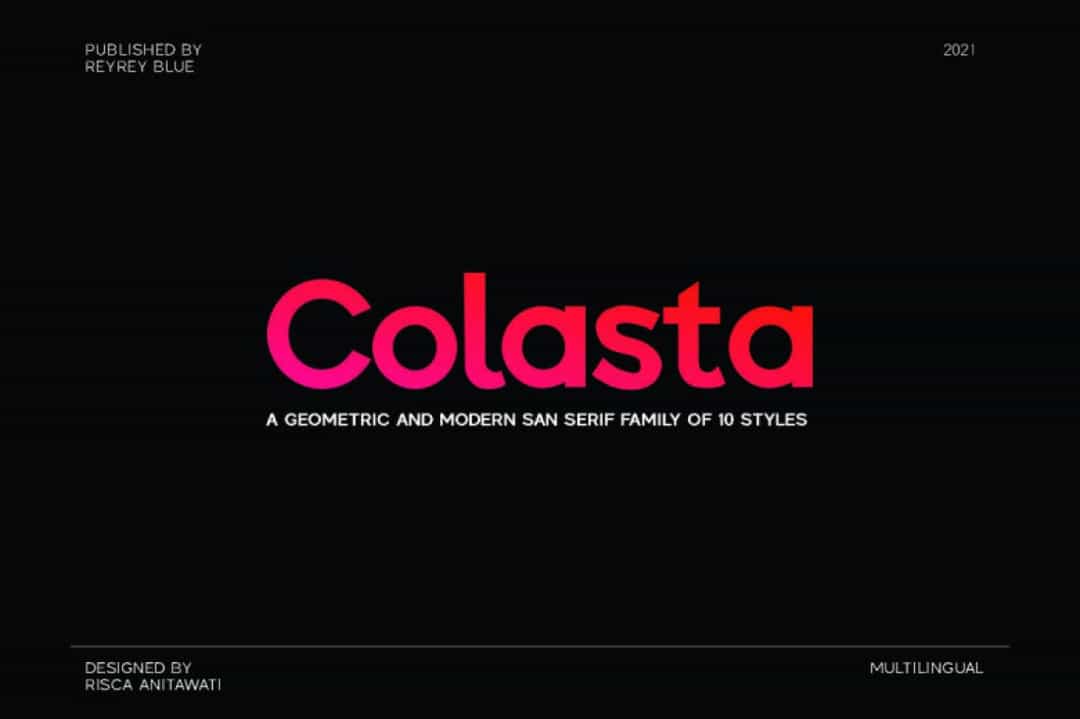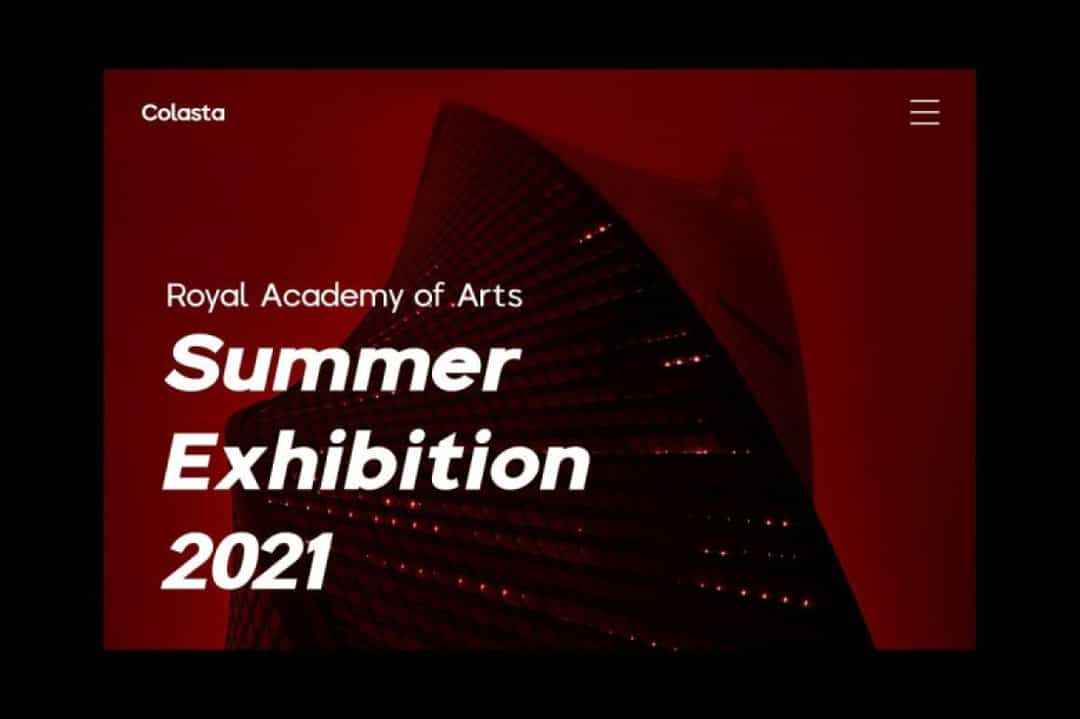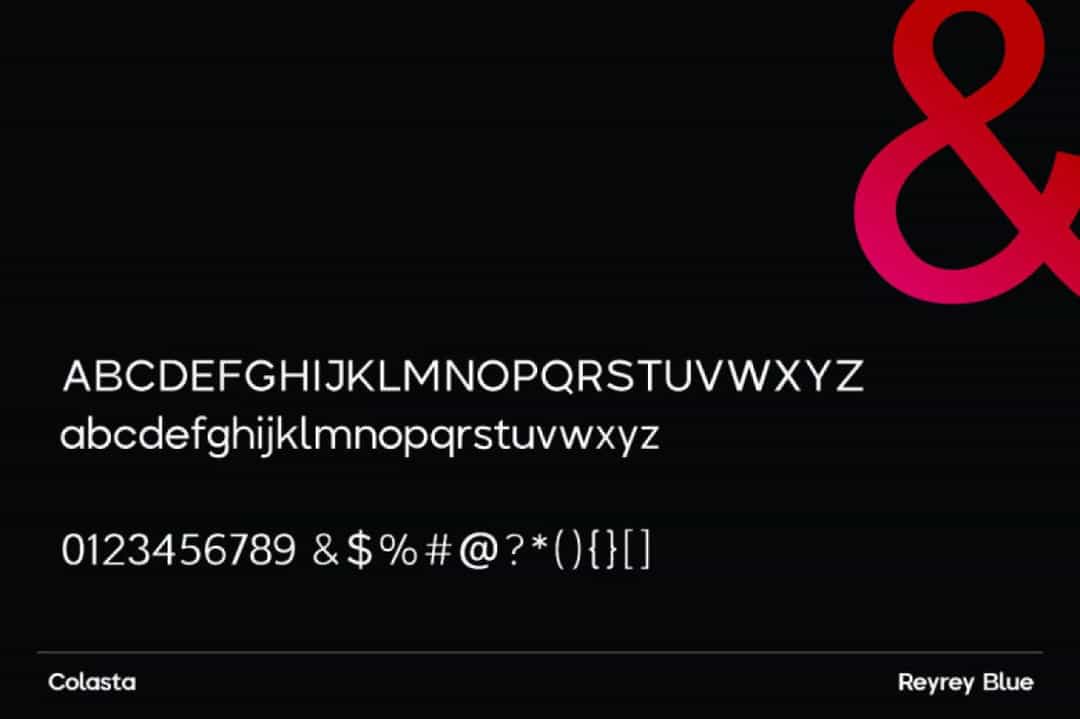
Colasta can be described as an elegant yet simple sans serif typeface family, making it suitable for an array of designs and applications. By including this font in your projects for creative inspiration and taking note of how it stands out!